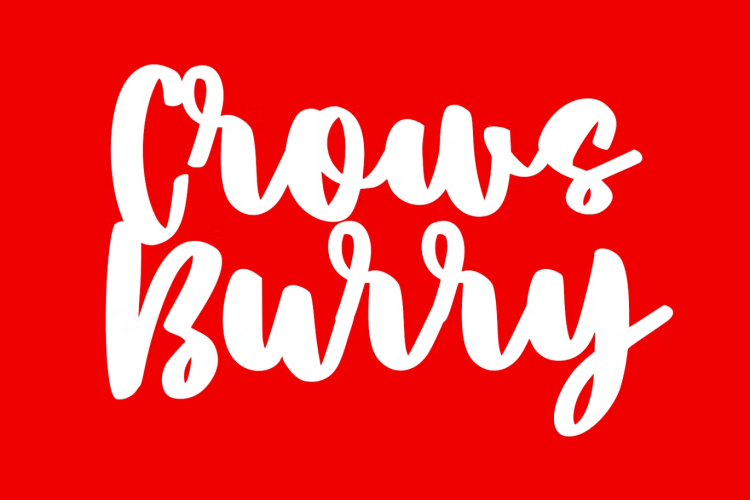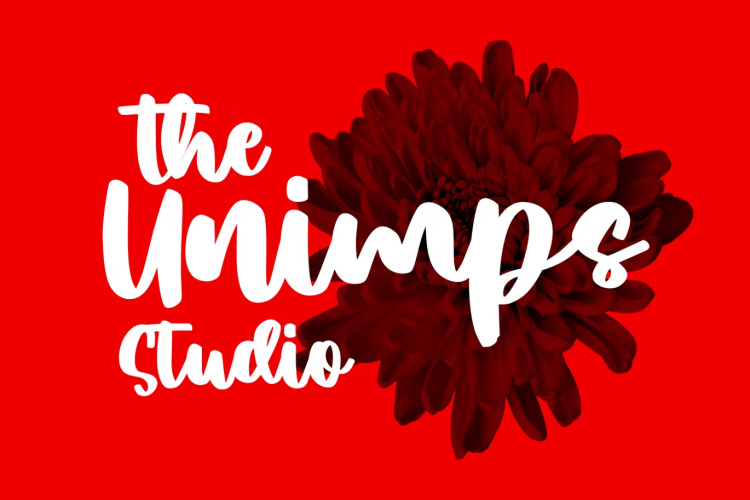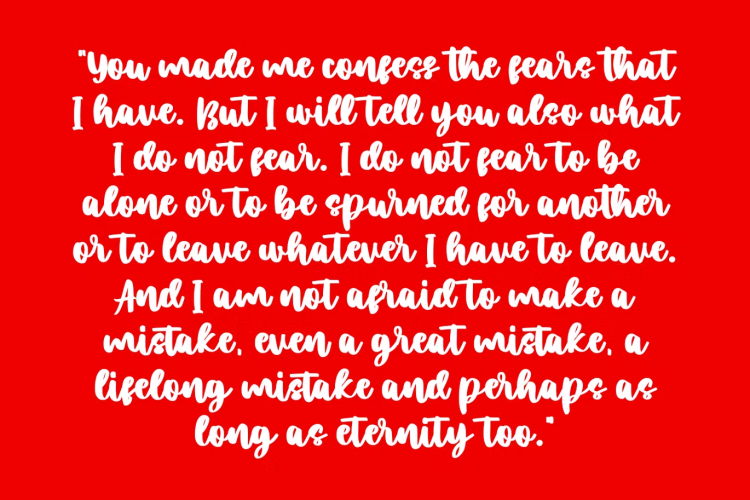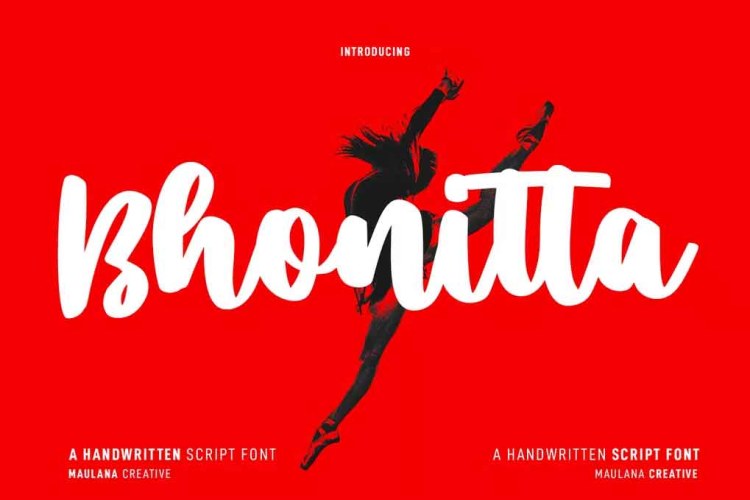
Bhonitta Script Font
Bhonitta is a fancy handwritten script font. With bold stroke, fun character with a bit of ligatures and alternates. To give you an extra creative work. Bhonitta font support multilingual more than 100+ language. This font is good for logo design, Social media, Movie Titles, Books Titles, a short text even a long text letter and good for your secondary text font with sans or serif. Make a stunning work with Bhonitta font.
Where Bhonitta Script Font works best
A short phrase in Bhonitta Script Font carries warmth that a typeset sans cannot fake; keep the rest of the card plain.
Chalkboard-style headings in Bhonitta Script Font make a menu feel hand-made. Keep the dish descriptions in a simple face so prices stay readable.
One line of Bhonitta Script Font over a photo is enough; the script carries the tone and the caption does the work.
What kind of work does Bhonitta Script Font suit?
It sits in the Script And Handwritten group and reads as bold, branding, creative, handwritten. That makes it a candidate wherever those qualities help: headings, packaging, social graphics and brand work. Set it at the size you plan to use before deciding.